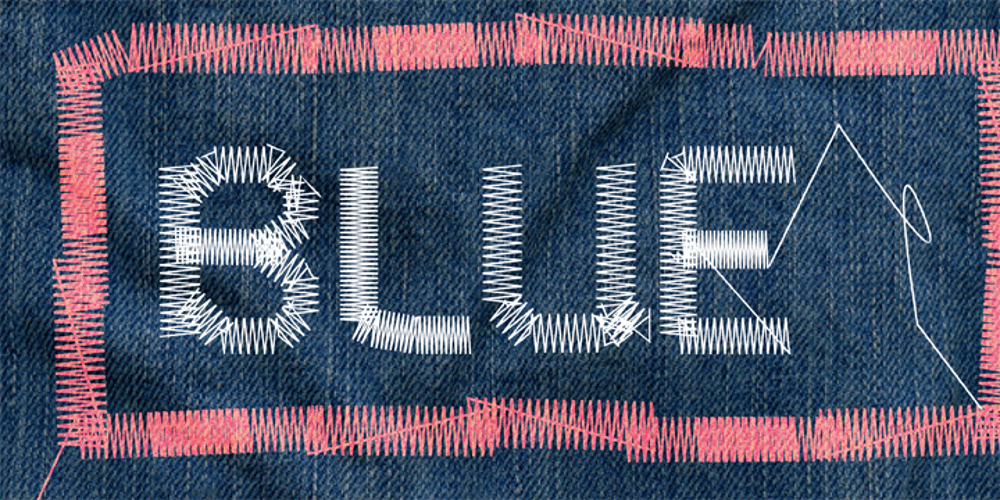
PT Sewed
PT Sewed font
PT Sewed Font Family was designed by Florian Gärtner and published by Volcano Type. PT Sewed contains 1 styles and family package options. PT Sewed is based on a set of monoline vectors/ letters. Designed for a cultural project. The sewed look was generated for an encyclopedia about jeans. Recommended only for T-shirt Designs and Headlines.